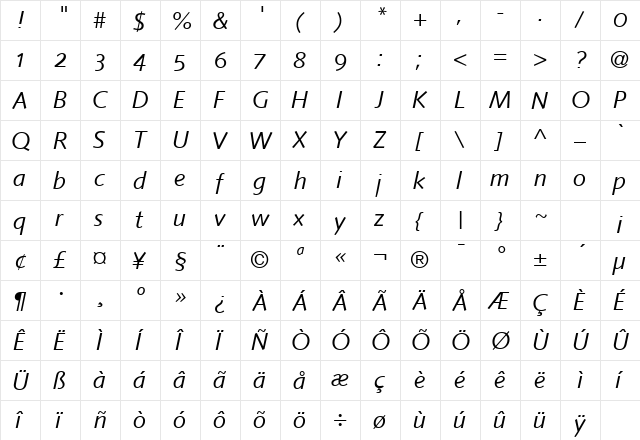
Unisyn Kursiv
Design Context for Unisyn Typeface
Unisyn is a composed and adaptable typeface that performs quietly and consistently across a wide range of design contexts. Its italic angle brings a sense of urgency and motion to the letterforms.
Pro Tip: Try Unisyn for annotation and caption copy alongside an upright companion — the contrast in angle creates a dynamic but ordered typographic system.